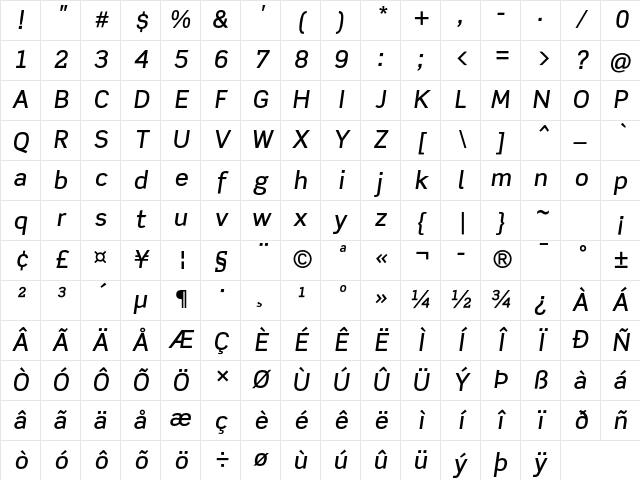
Complete Scene Std Medium Italic glyph index. Displaying only characters natively supported by Scene Std Medium Italic font.
Scene Std is a composed and adaptable typeface that performs quietly and consistently across a wide range of design contexts. The slanted form adds forward momentum and visual energy.